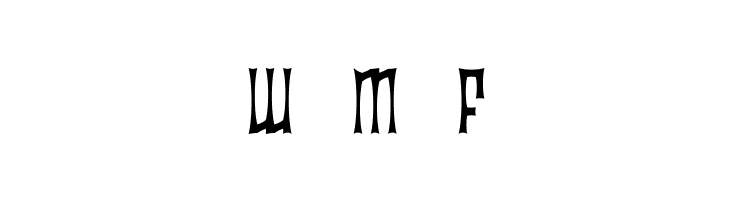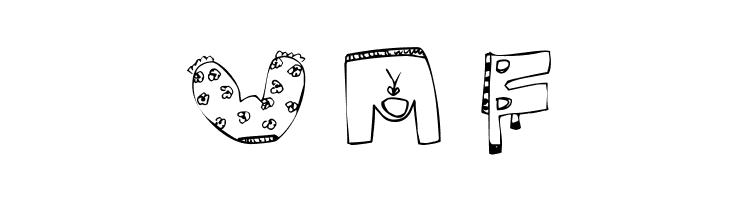
A decorative and playful font filled with unique patterns and shapes.
A tall, narrow, hand-drawn font with a unique and artistic style.
A futuristic, italicized font with a striped, dynamic design.
A modern, pixelated font with bold, segmented characters ideal for tech and digital themes.
A playful and whimsical font with decorative patterns and unique characters.
A festive collection of Christmas-themed dingbats featuring ornaments, gifts, and holiday symbols.
A bold, decorative font with geometric and intricate details.
A bold, italicized font with a futuristic and angular design.
A playful, hand-drawn font with quirky, bold characters.
A futuristic, segmented font with a bold, digital aesthetic.
A playful, handwritten font with a casual and informal style.
A bold, geometric font with a 3D shadow effect, ideal for modern and industrial designs.
A bold, 3D font with a striped pattern and shadow effect, perfect for striking designs.
A bold, geometric font with a stencil-like appearance, ideal for impactful designs.